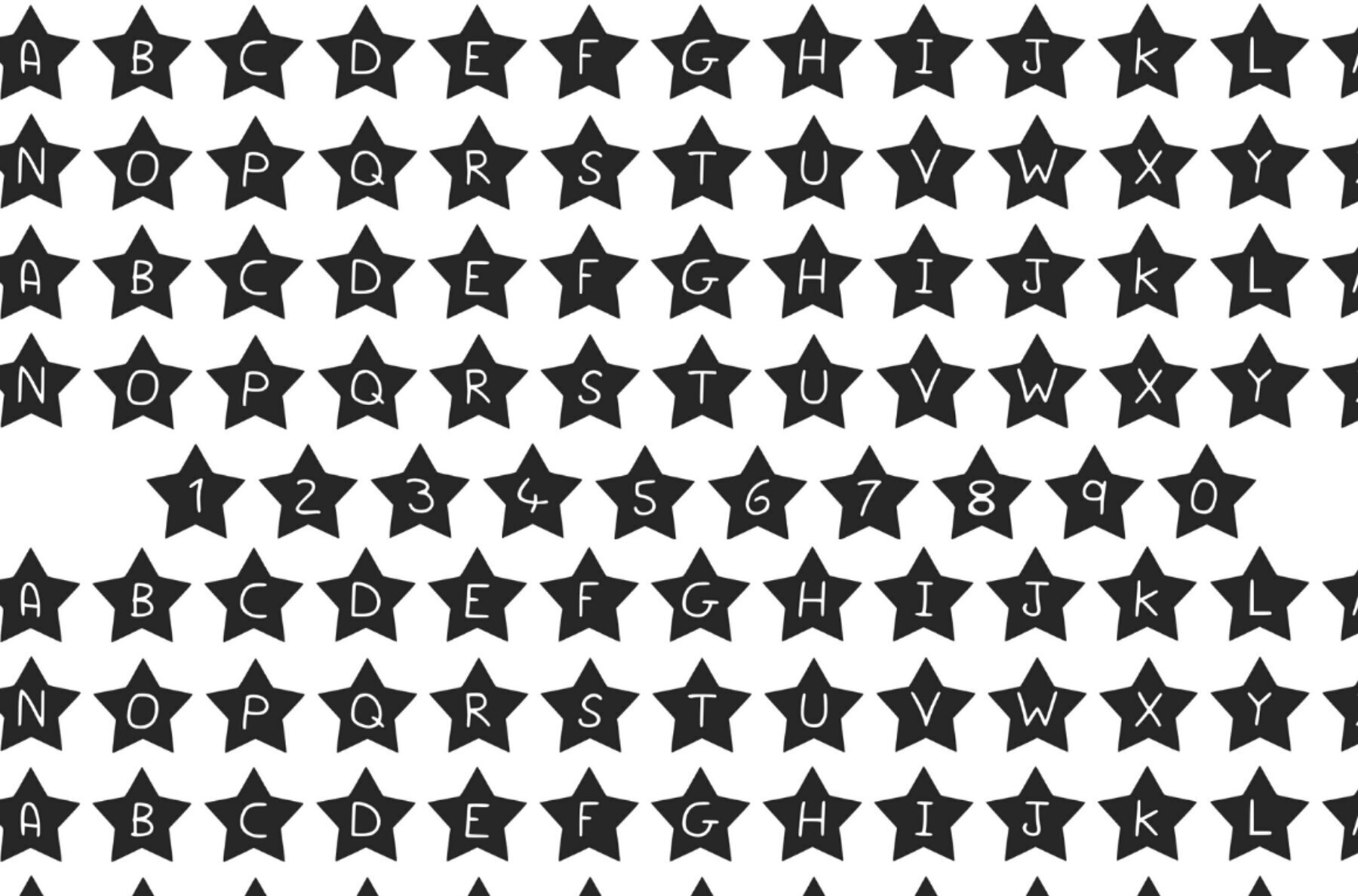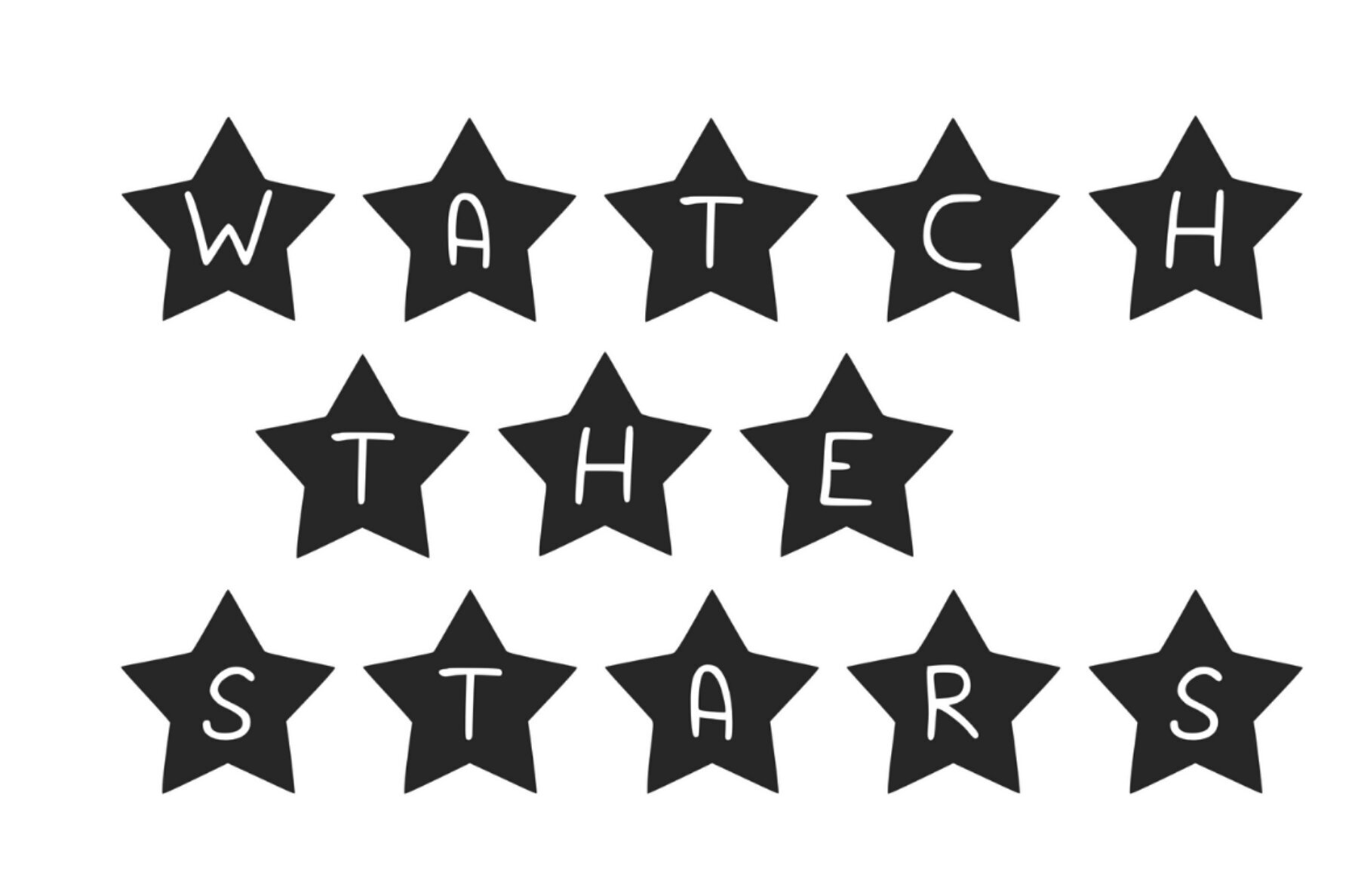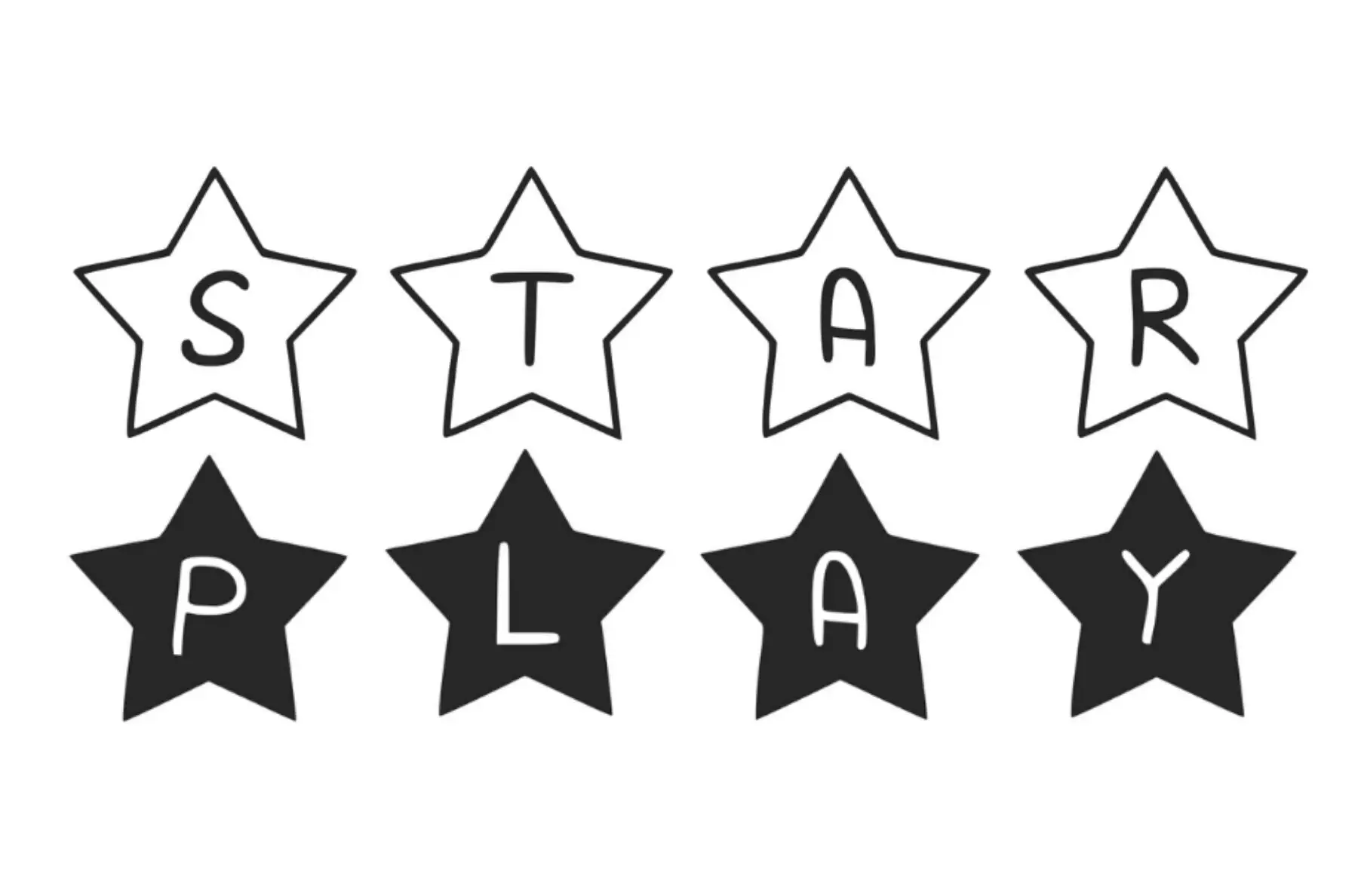
Star Play Font
Introducing Star Play, a playful font pack that blends the whimsical charm of Casual Comic Sans with the iconic shape of a star. This versatile pack offers both an outlined star and a solid font, making it perfect for a wide range of playful and vibrant designs. With its distinctive style, Star Play is the perfect font choice to add a burst of creativity and fun to any project. Unleash your imagination and let your designs shine with this unique typeface!Star Play: Casual Comic Font for Creative Projects